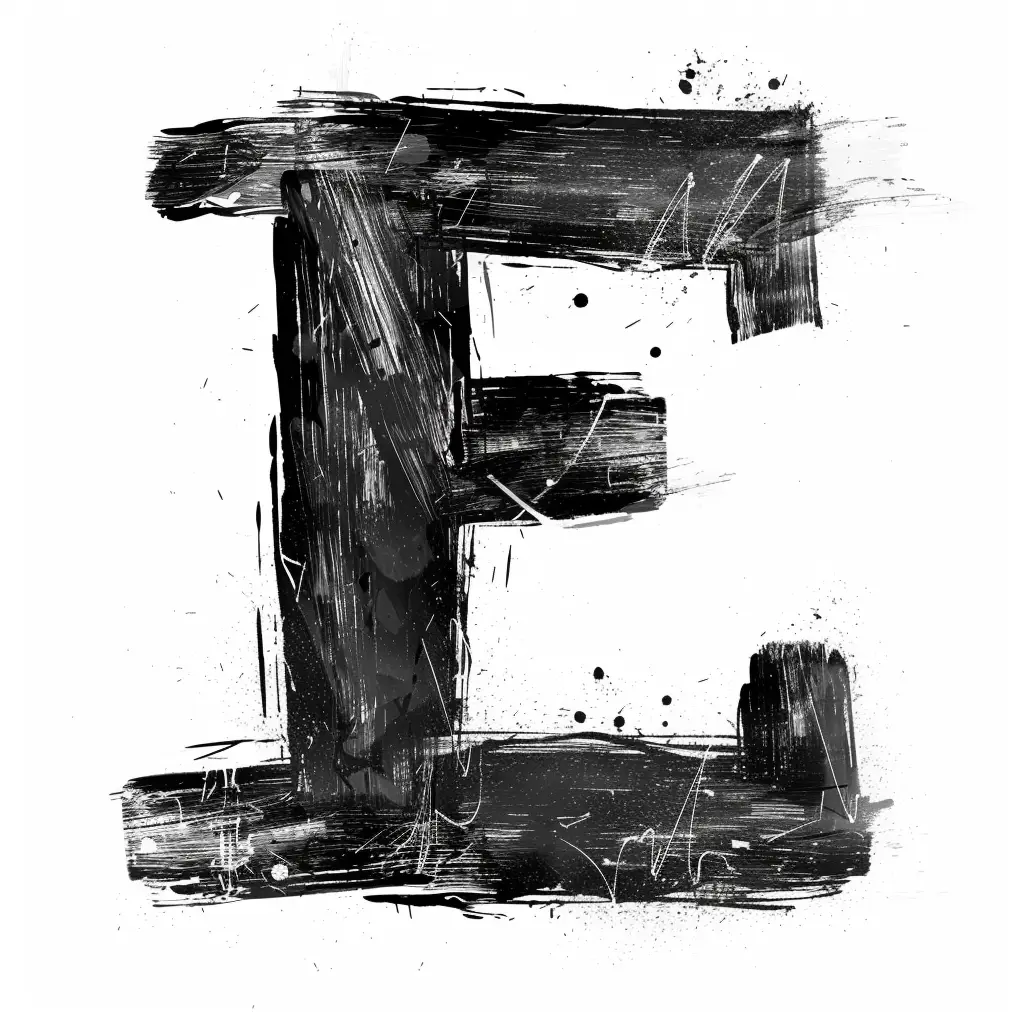
The image features a stylized, abstract representation of the letter "E" rendered in bold black brushstrokes against a white background. The design incorporates rough, textured lines, splatters, and subtle white accents, giving it a dynamic, artistic, and slightly chaotic appearance. The monochromatic color scheme emphasizes the contrast between the dark, expressive strokes and the clean, light backdrop.